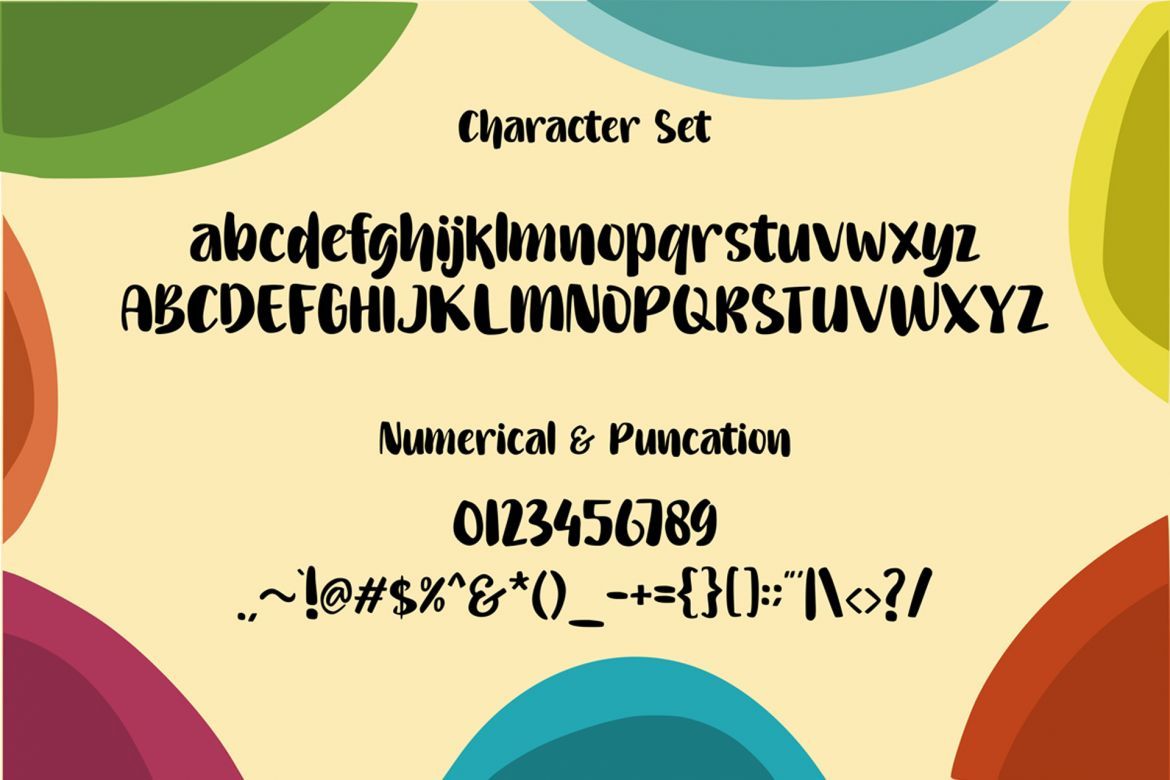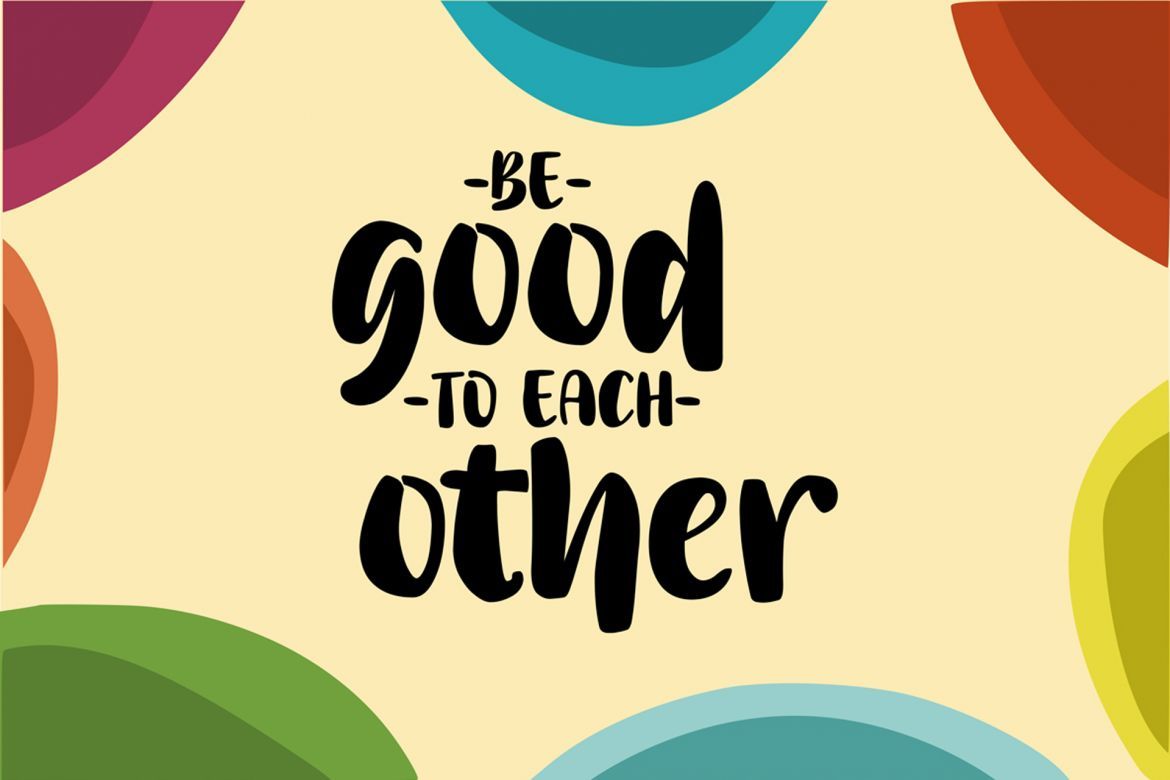
Gembulla Font
we welcome our newest font, gembulla. gembulla is a children fun font that is very suitable for projects with the theme of fun and children, very good for quotes, book titles, t-shirts, and packing products, etc.
Whats feature in this font ?
Uppercase Letter
Lowercase Letter
Punctuation and Number